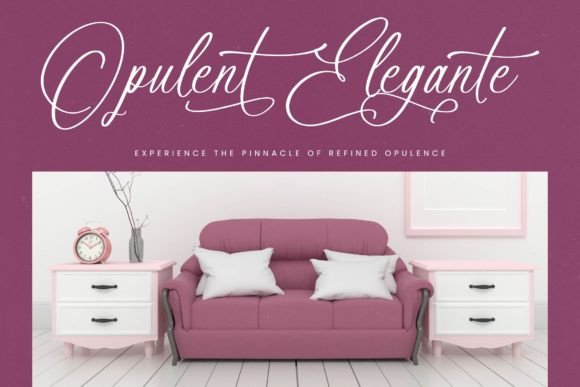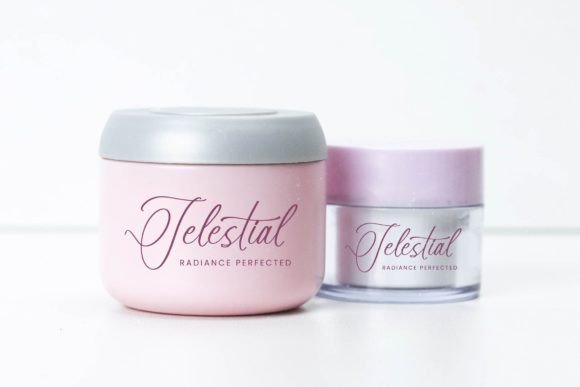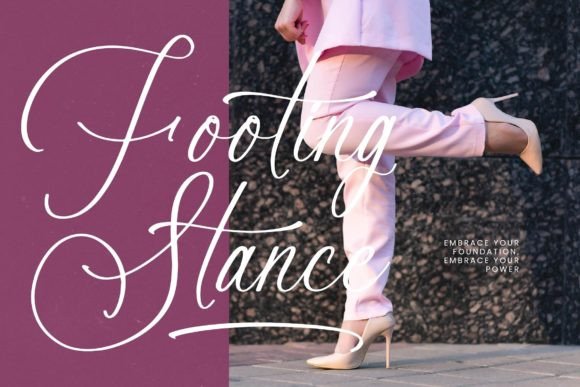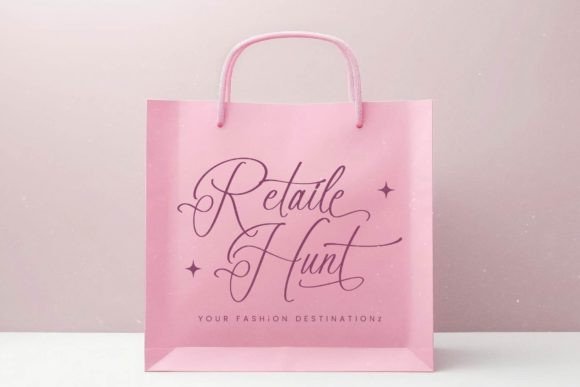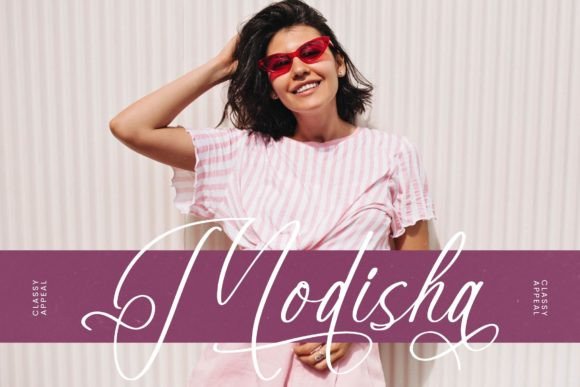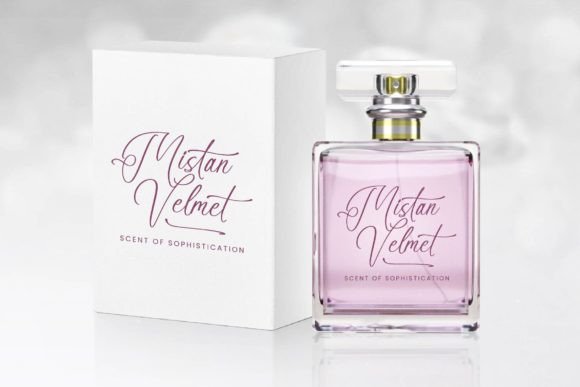
Unleash Your Creativity with Anastasia Boutiques Font
Have you ever found yourself in a creative moment, staring at a blank canvas, waiting for the perfect words to flow? For designers, this moment is a common occurrence, and the right font can make all the difference. This is where the Anastasia Boutiques Font comes in – a luxurious script font that’s sure to elevate your projects to new heights.
Developed by Letterena, the Anastasia Boutiques Font is a premium script font designed for high-end projects. With its elegant and sophisticated feel, it’s perfect for logos, branding, product packaging, and more. Whether you’re working on a luxury homeware design or creating a special event invitation, this font is sure to add a touch of class and sophistication.
As a designer, you know how valuable a well-chosen font can be. The Anastasia Boutiques Font is no exception, offering a level of elegance and refinement that’s hard to find in other fonts. With its versatility and high-end feel, it’s a must-have in any designer’s toolkit.
Anastasia Boutiques Font Key Features
- Font Family: Anastasia Boutiques Font is a unique, high-end font family with 6 styles (Regular, Italic, Bold, Bold Italic, Outline, and Fill) designed for luxury and high-end branding.
- Unique Characteristics: Anastasia Boutiques Font features intricate, hand-drawn designs with ornate details and luxurious flair, perfect for creating high-end branding, logos, and packaging.
- Language Support: The font supports a wide range of languages, including Latin-based languages, Cyrillic, and Greek, making it suitable for international branding and design projects.
Designer Review: Anastasia Boutiques Font
As a designer, I’m always on the lookout for fonts that capture the essence of elegance and sophistication. Anastasia Boutiques Font, with its intricate details and luxurious feel, seems to fit the bill. Here are some things that caught my attention.
- The font’s script style is beautifully rendered, making it perfect for labels, signage, or any other design where a touch of luxury is needed.
- The uppercase letters are particularly stunning, with intricate flourishes that add to the font’s overall charm.
- The font is highly customizable, allowing designers to adjust the size, spacing, and color to suit their needs.
- The font may be too ornate for some designs, potentially overwhelming the reader with too much detail.
- The lowercase letters, while still lovely, lack the same level of sophistication as the uppercase letters.
- The font may not be ideal for body text, as it can be difficult to read at smaller sizes.
Overall, Anastasia Boutiques Font is a beautiful addition to any designer’s toolkit. While it may have some limitations, its unique style and customization options make it a great choice for designs that require a touch of luxury and elegance.